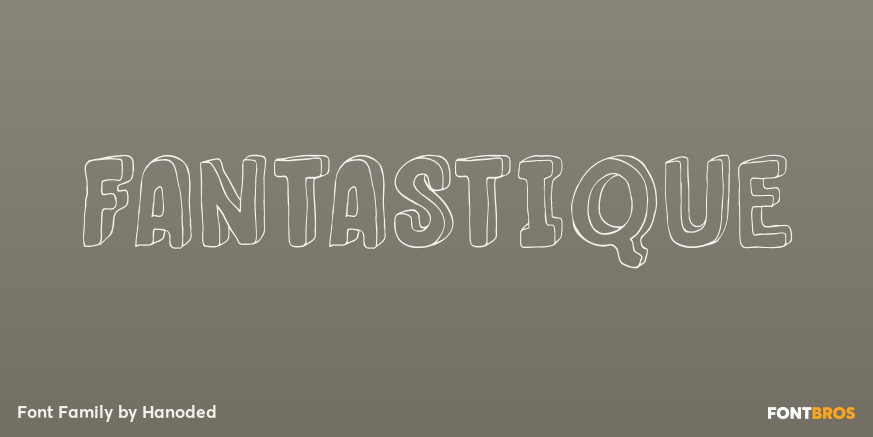
Fantastique
About Fantastique
Fantastique is a bit of a sloppy 3D font: the outline is wobbly and the glyphs are uneven. Because of its imperfectness, it is ideal to create posters, advertisements and the like, because sloppy as it may be, Fantastique will catch your eye! C\’est Fantastique!…